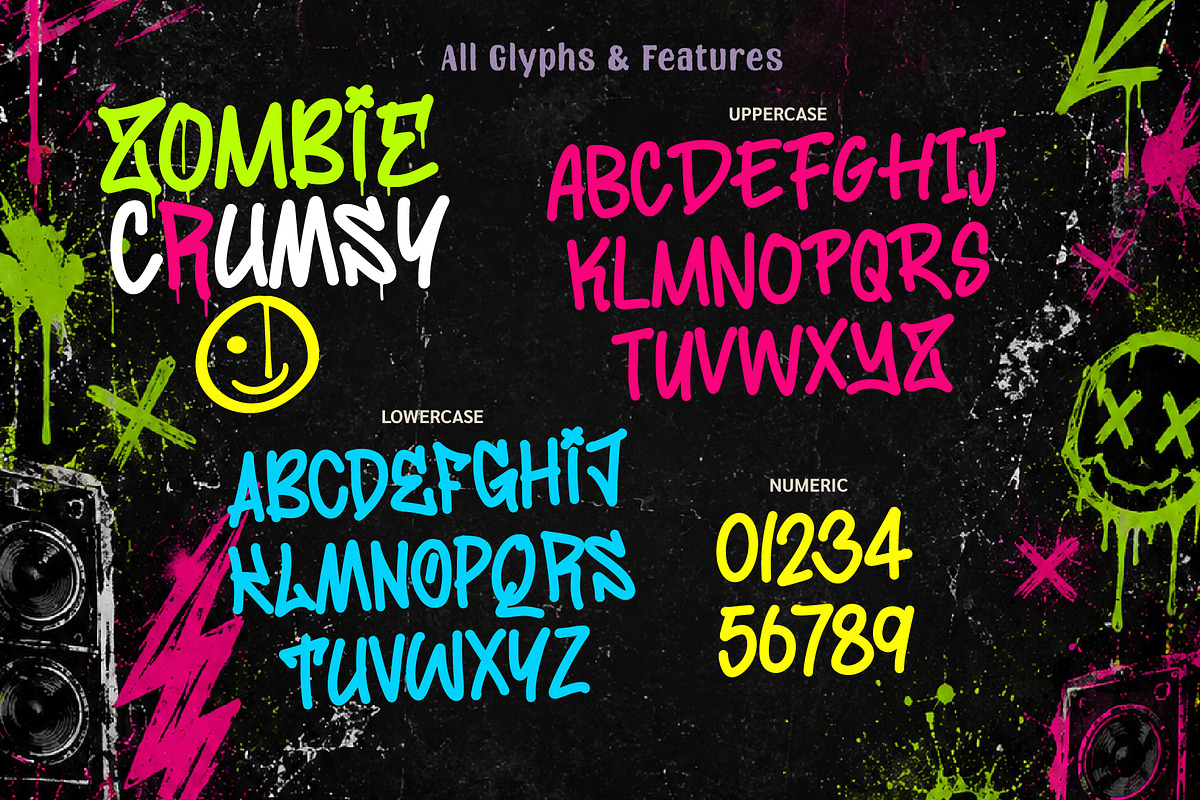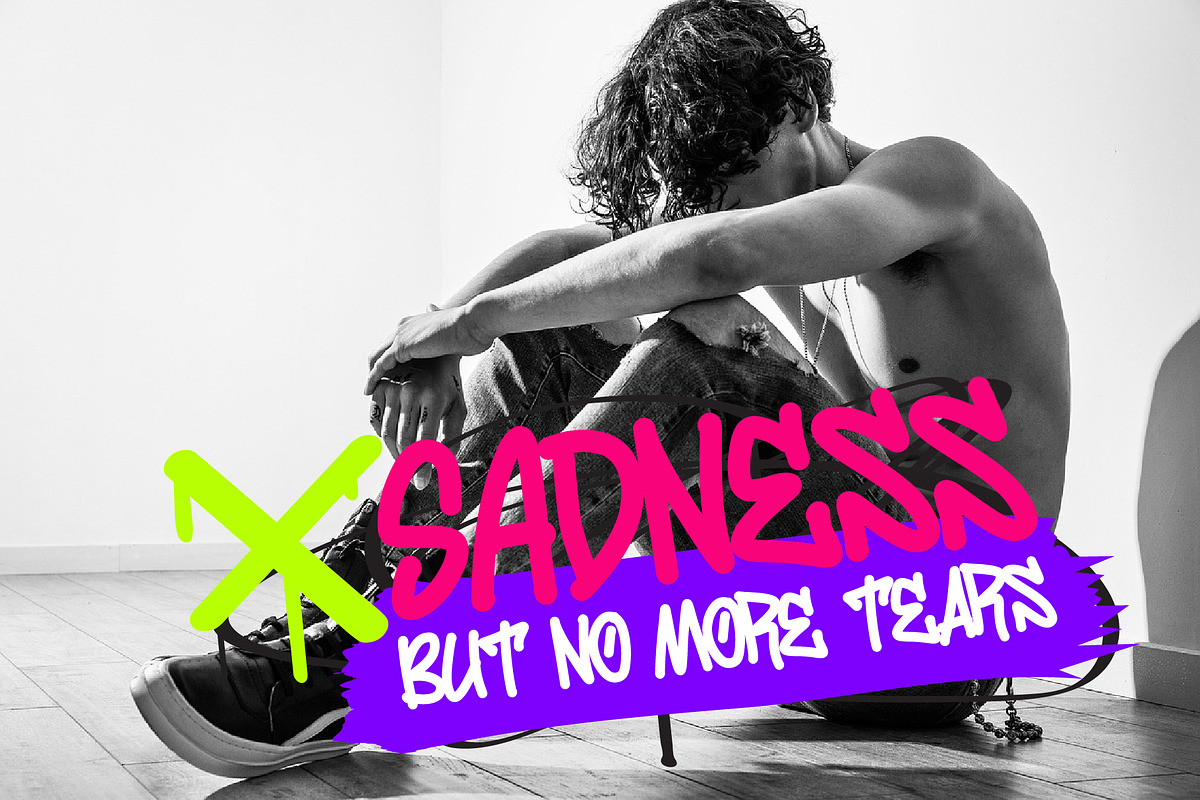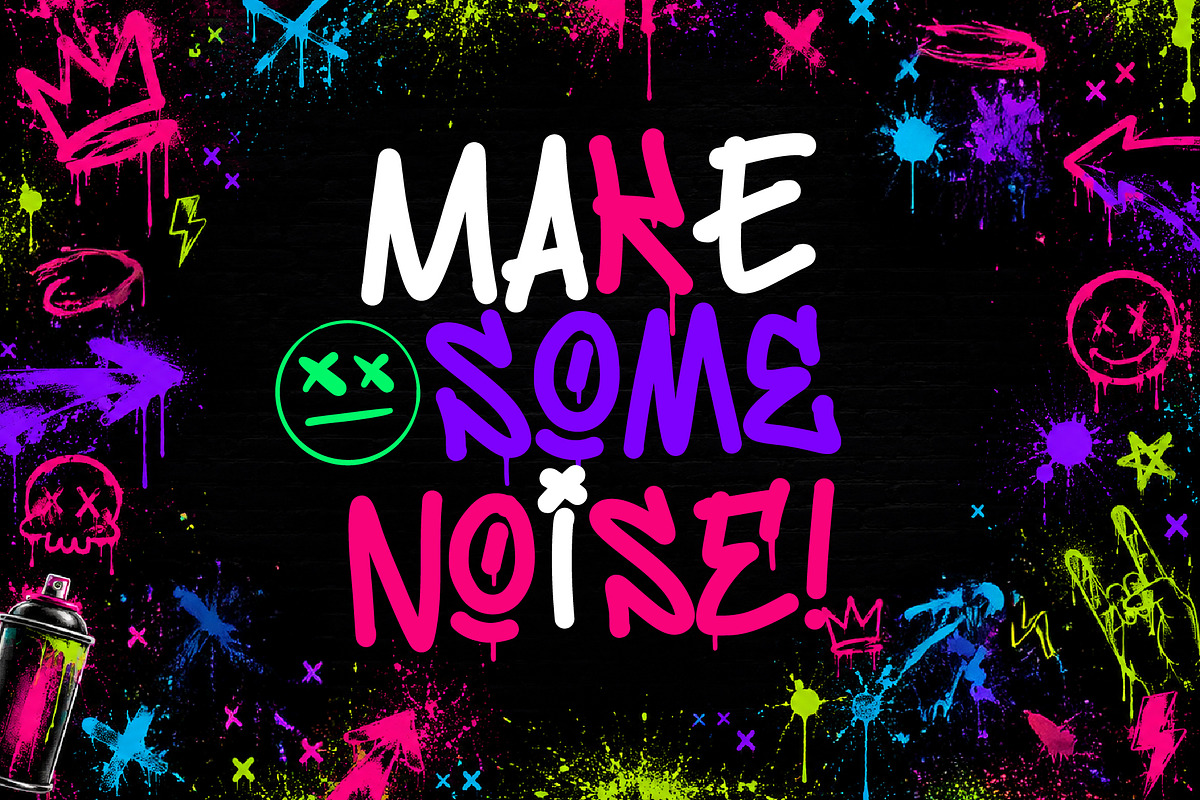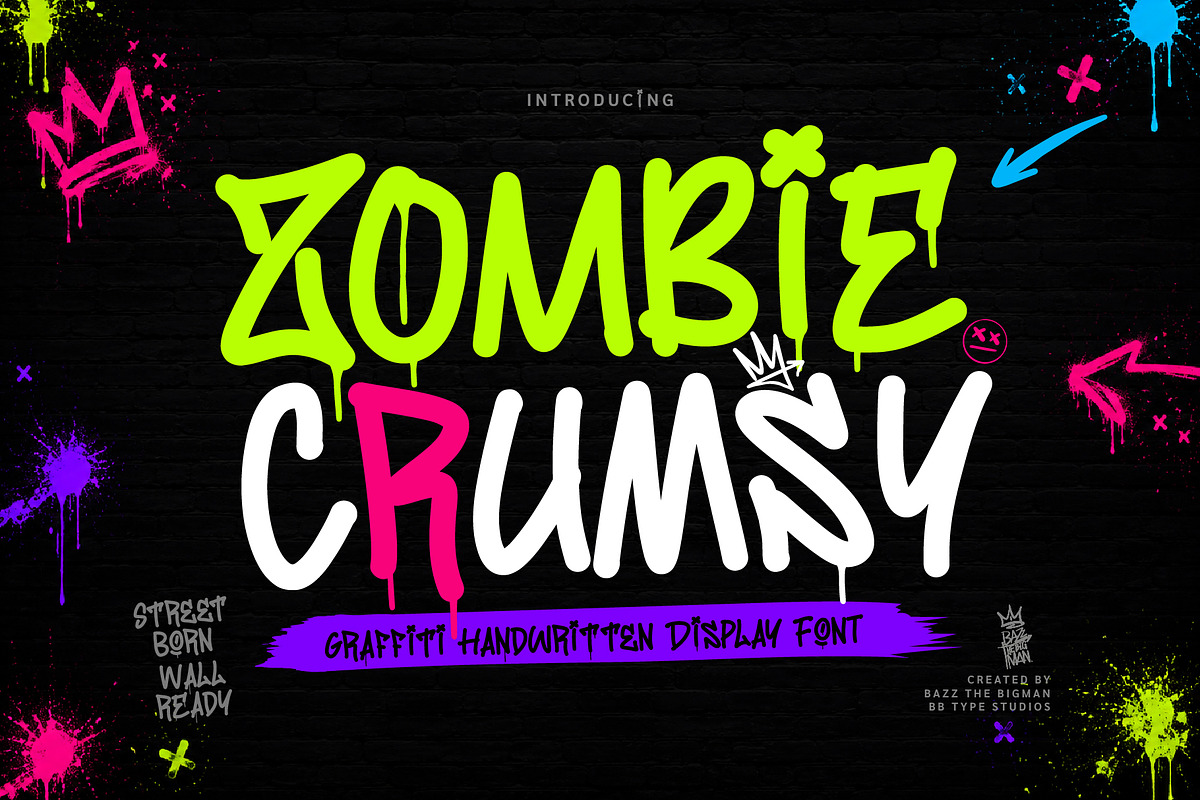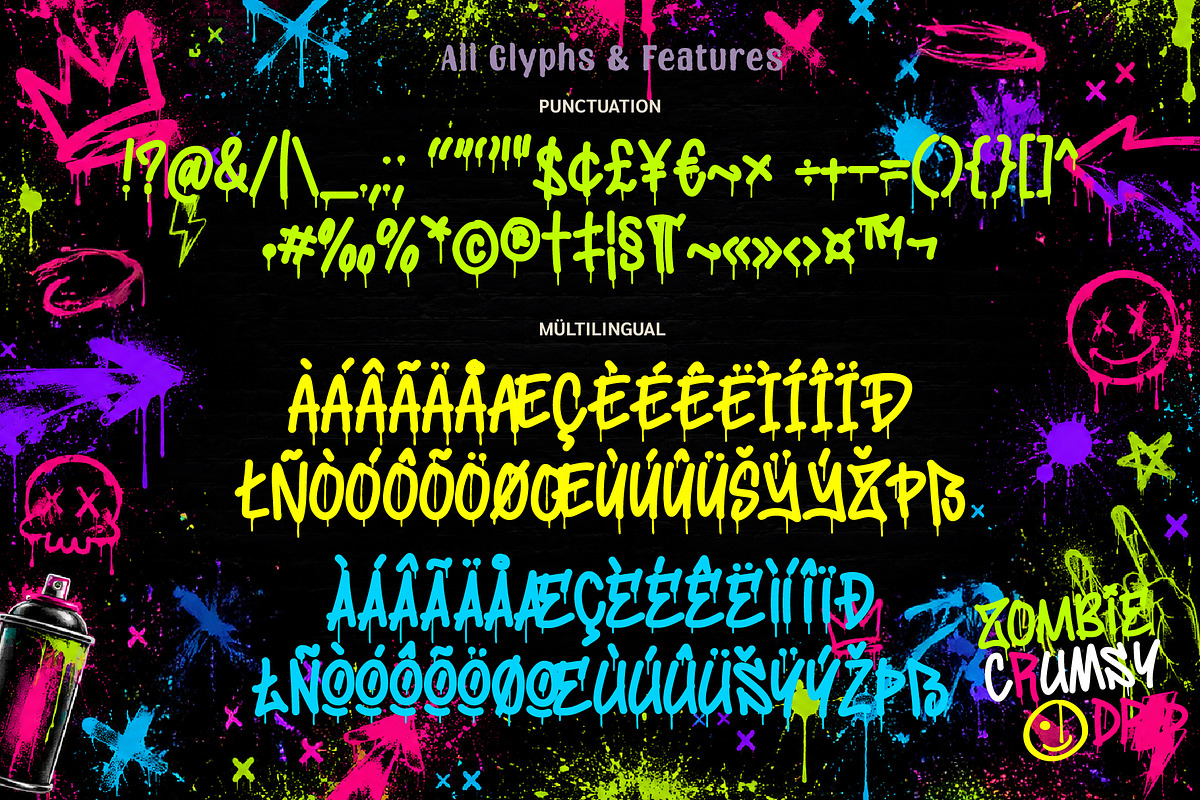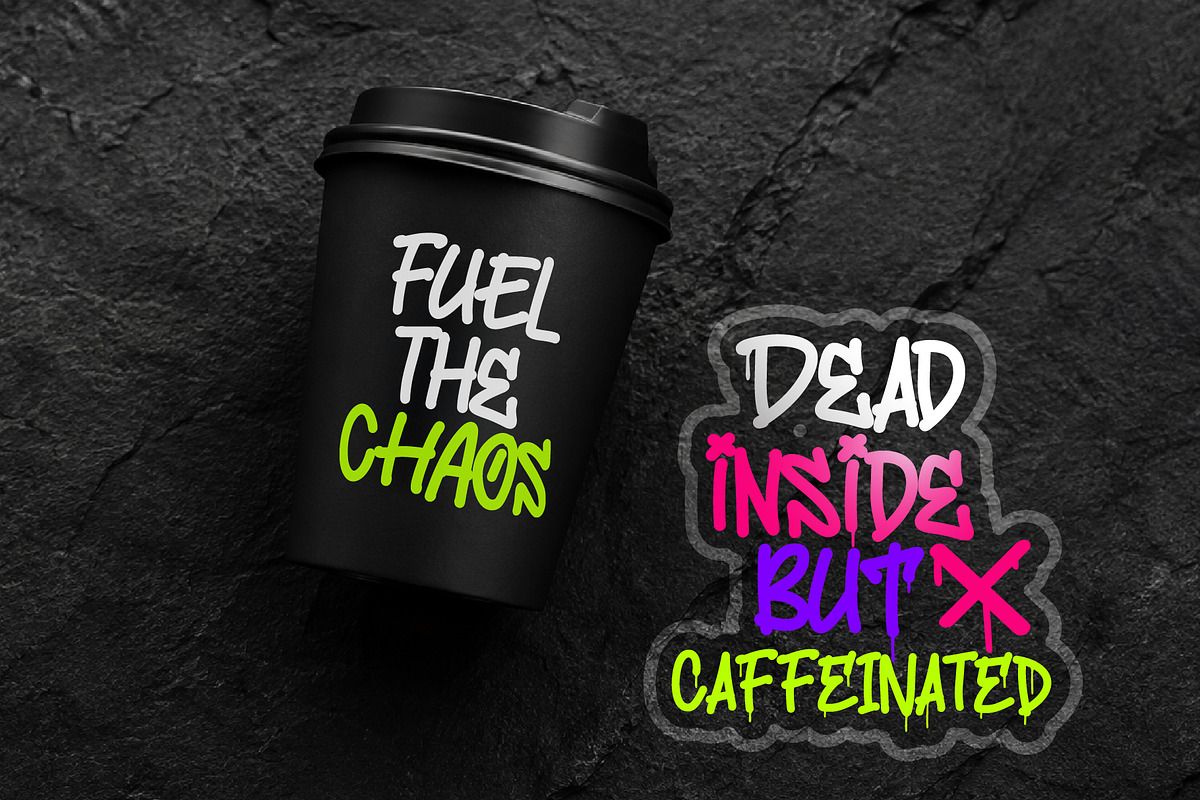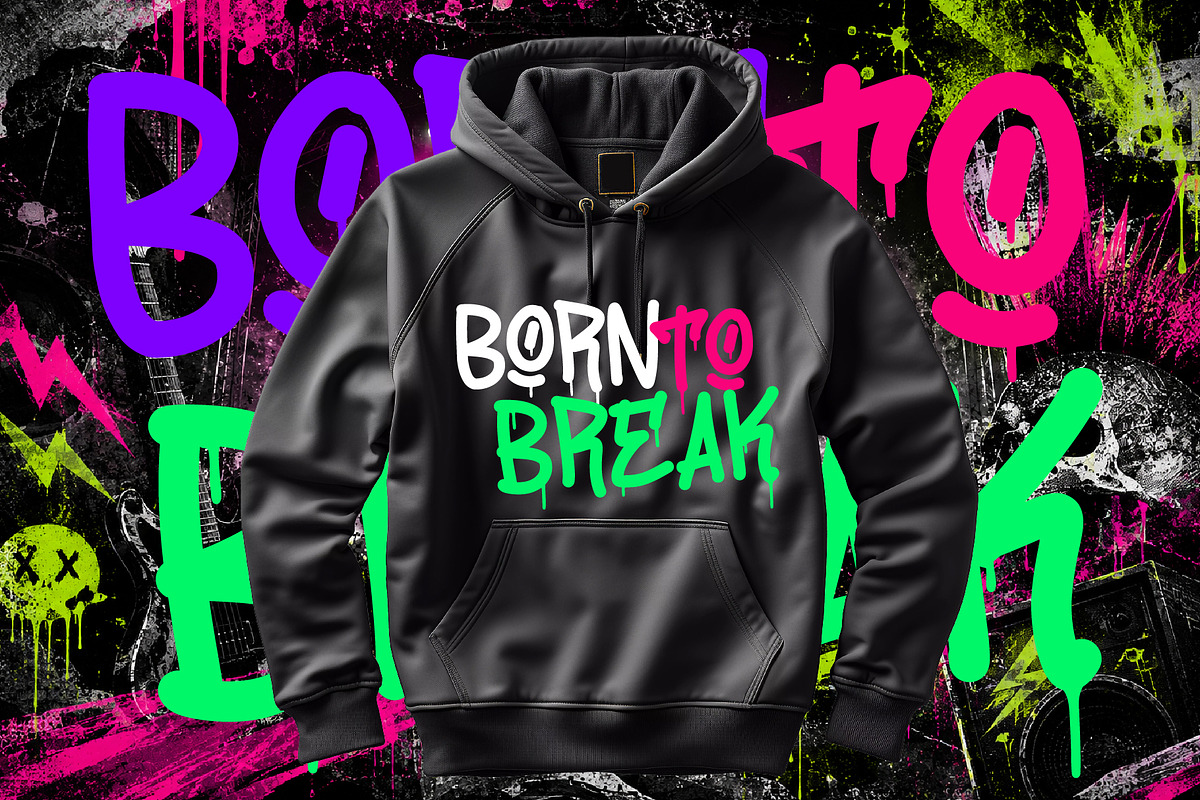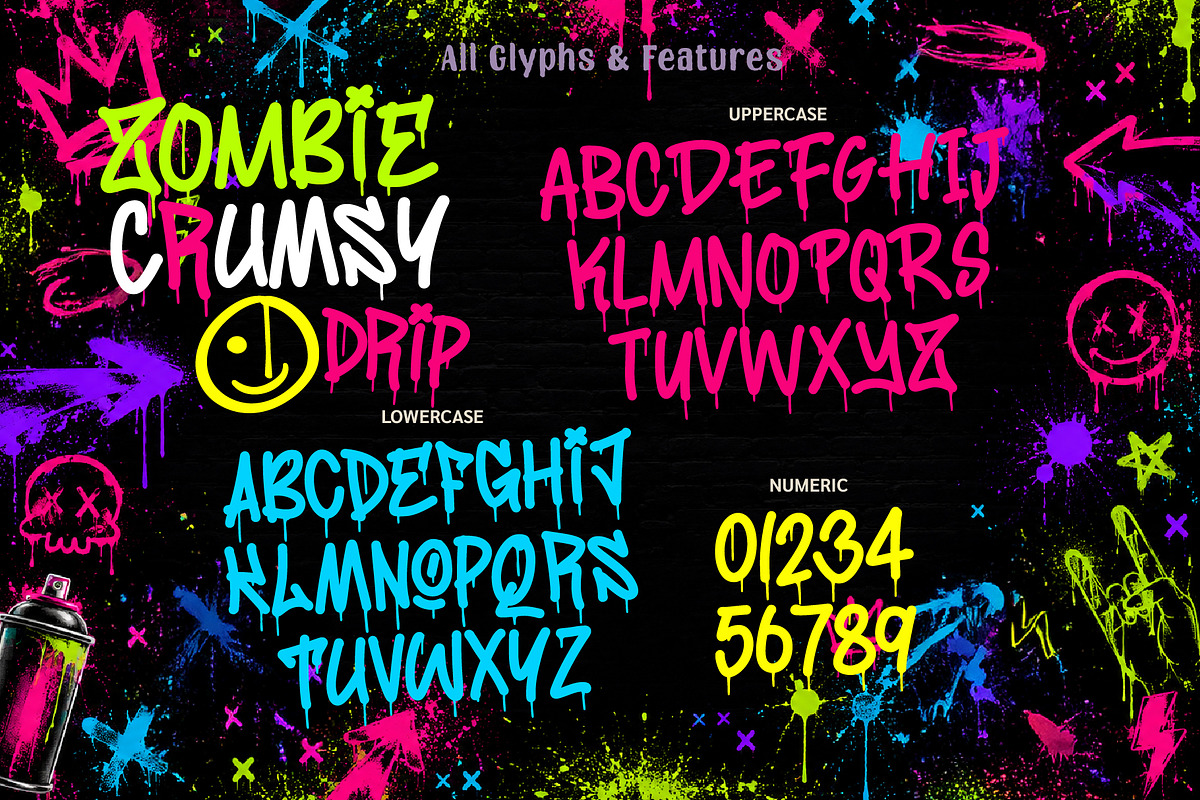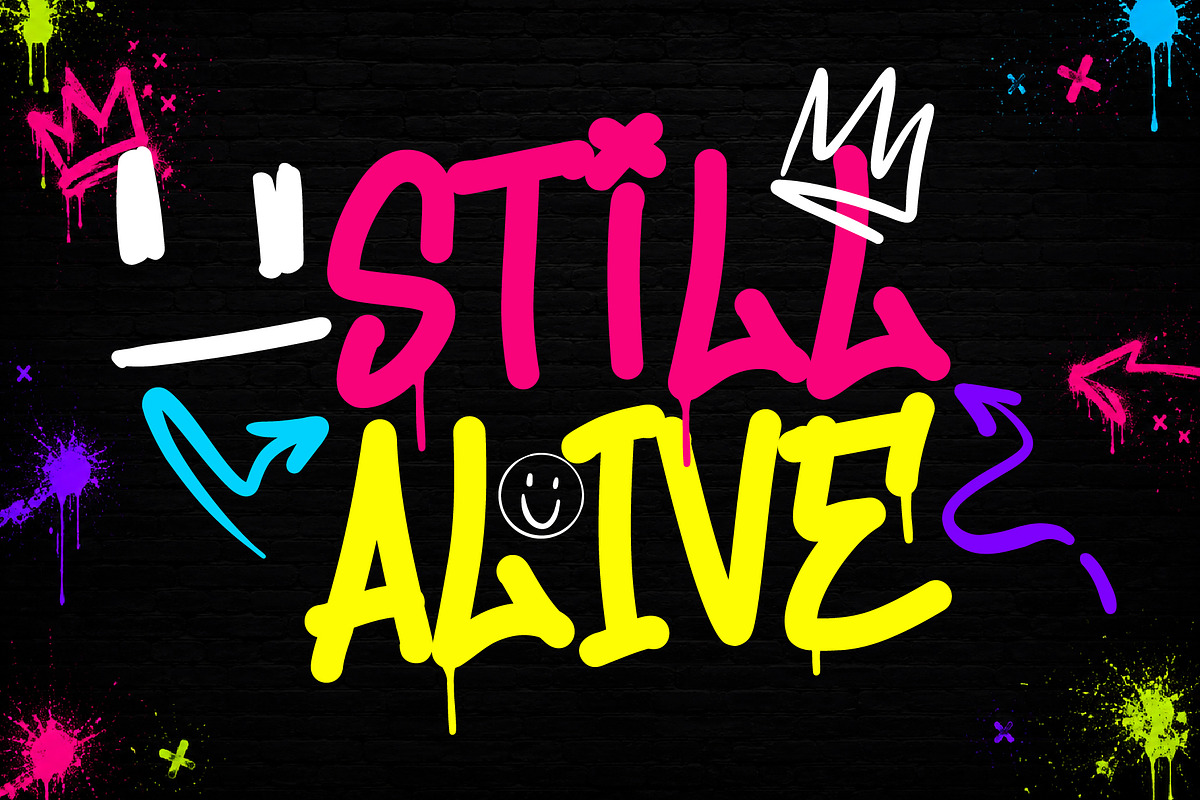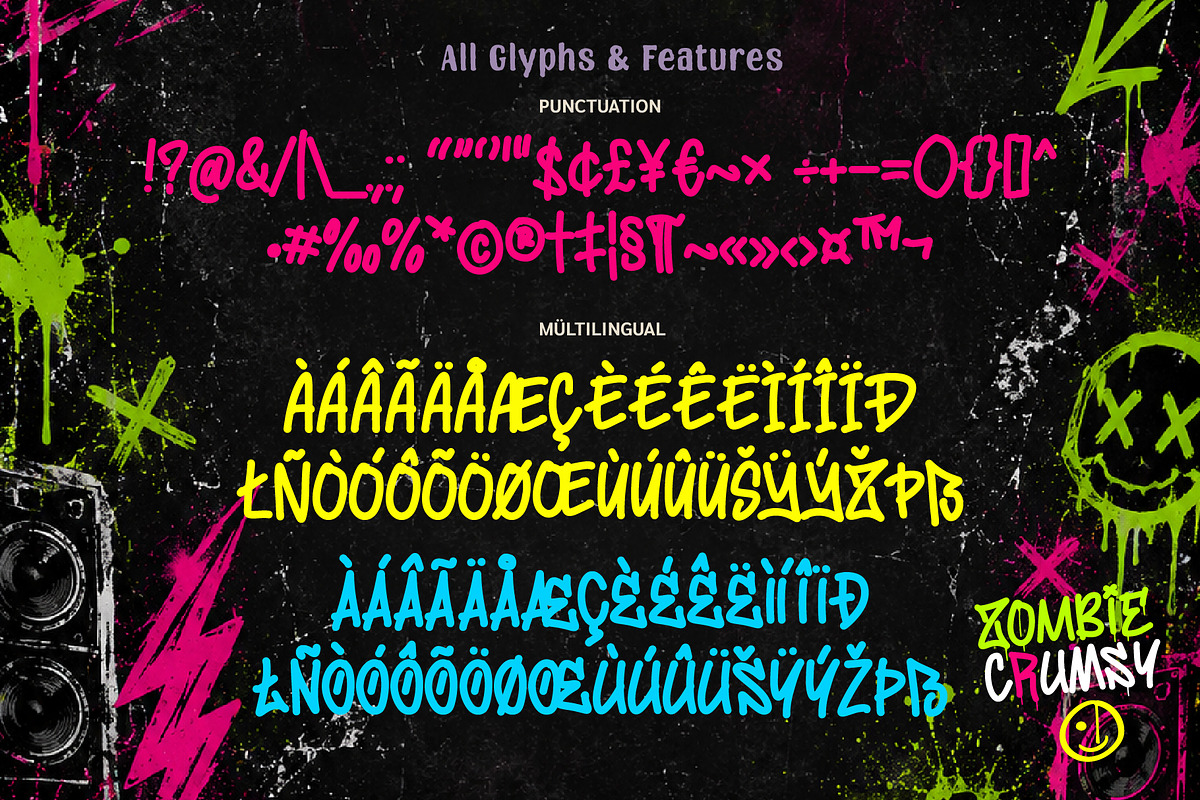
Zombie Crumsy
Zombie Crumsy is a bold graffiti-inspired handwritten display font packed with attitude, energy, and street culture vibes. Designed with rough brush strokes, playful imperfections, and eye-catching character shapes, this font brings an authentic urban aesthetic to your creative projects.
Inspired by graffiti walls, punk rock posters, streetwear culture, skateboarding, and underground music scenes, Zombie Crumsy is perfect for creating bold headlines that demand attention.
Perfect for: • Streetwear Branding • Graffiti Designs • Punk Rock Posters • Music Festival Flyers • Skateboard Graphics • Hoodie & T-Shirt Designs • Album Covers • Sticker Packs • YouTube Thumbnails • Social Media Graphics • Urban Branding Projects